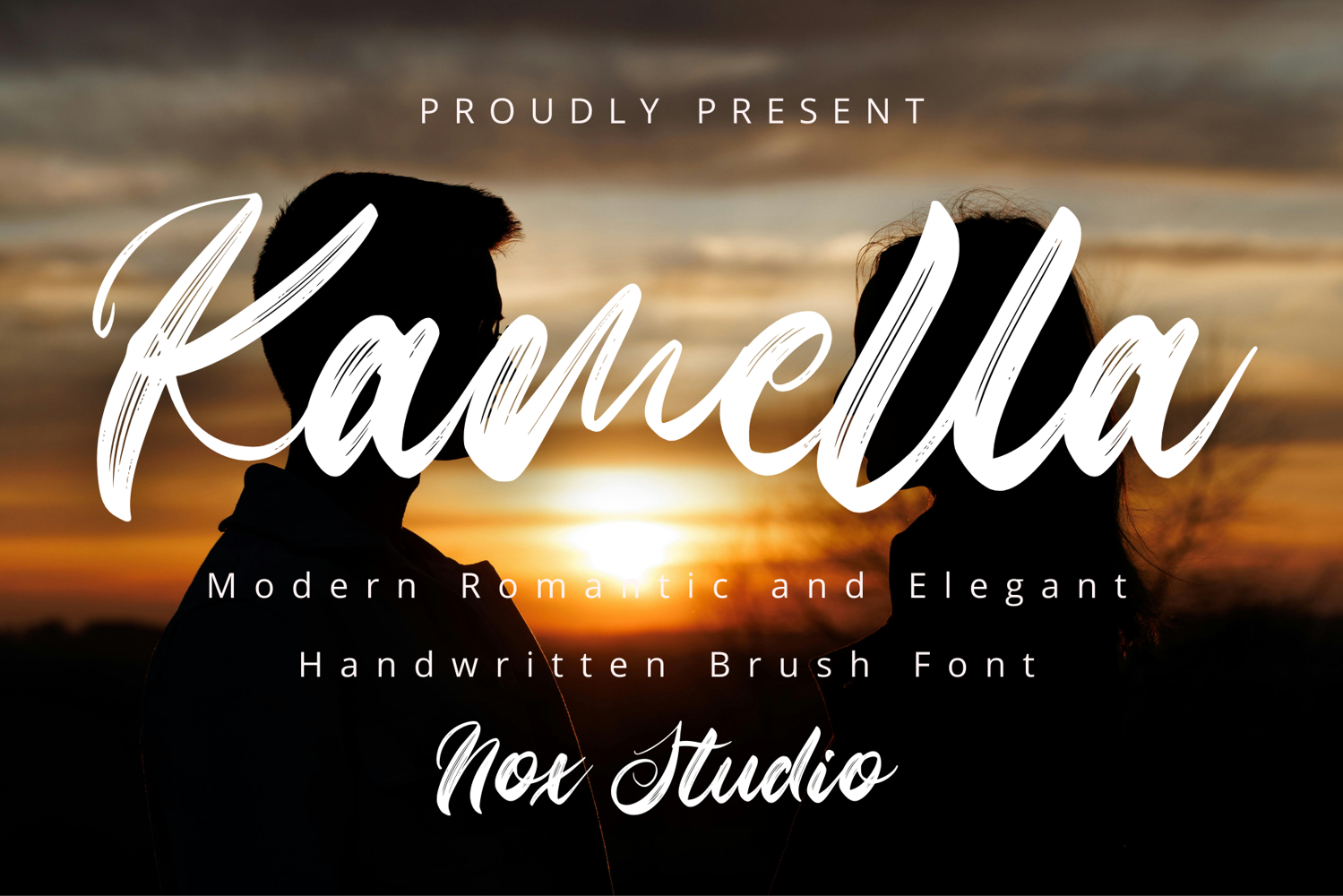
Kamella
Kamella - Italic
Kamella
Kamella pirouettes gracefully onto the page, a script font embodying chic elegance and gentle fluidity reminiscent of natural handwriting. Its sophisticated ligatures and seamless connections are skillfully engineered, lending a dreamy sophistication and contemporary flair to every endeavour. Kamella blooms in wedding themes, brand creations, striking logos, refined packaging, heartwarming quotes, and designs that pay tribute to the feminine spirit. Unleash your creative essence with Kamella – a font that marries timeless elegance with contemporary charm.